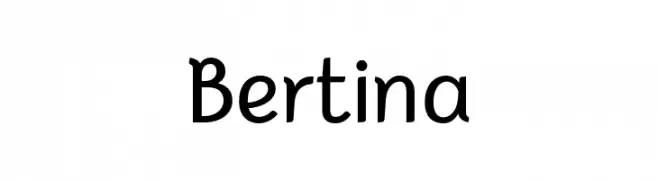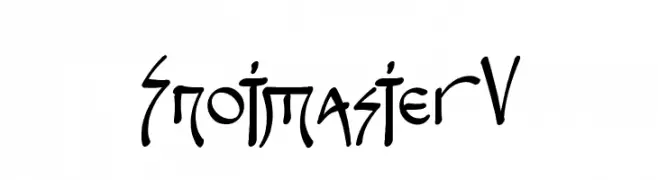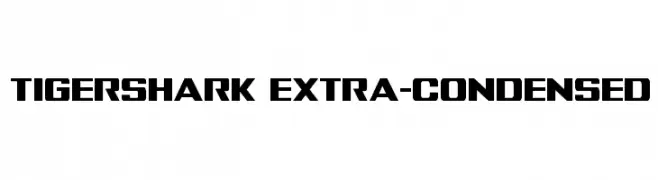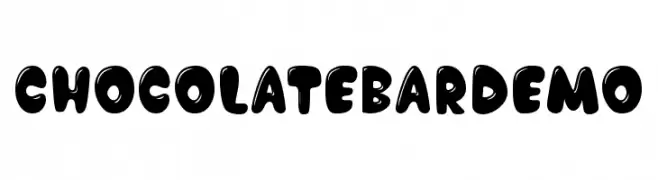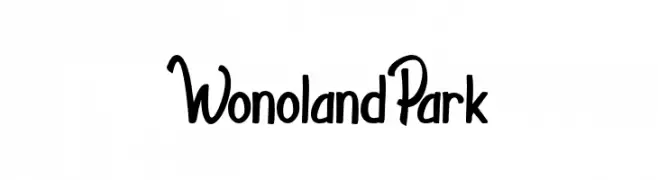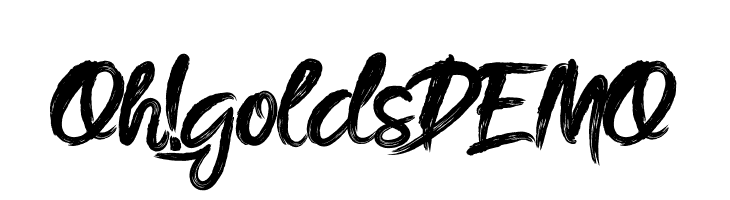
A modern, rounded sans-serif font with a friendly and approachable style.
A whimsical and artistic font with elongated, curved strokes and distinctive serifs.
A bold, extra-condensed font with geometric, modern design.
A rugged, distressed font with a bold, artistic flair.
A playful, handwritten-style font with bold, slightly slanted characters.
A bold, playful font with a 3D effect and cartoonish style.